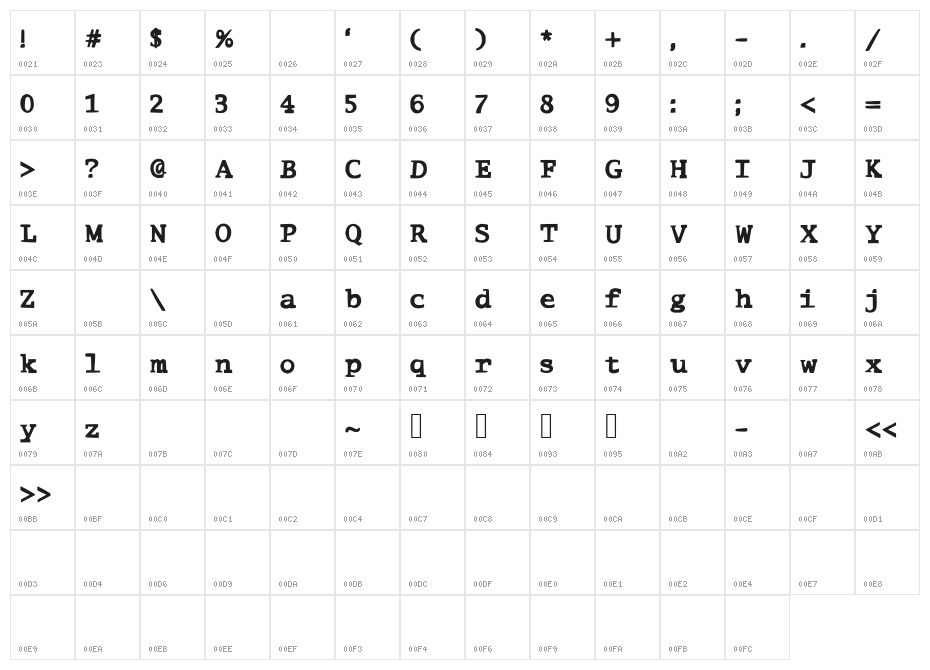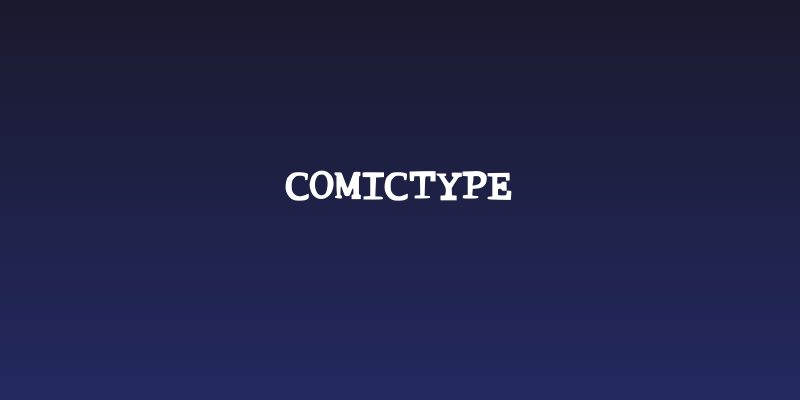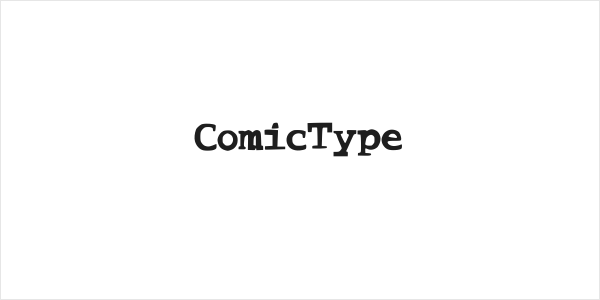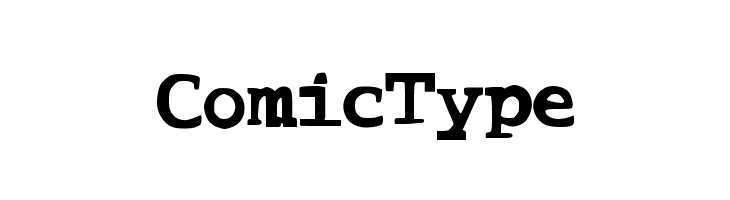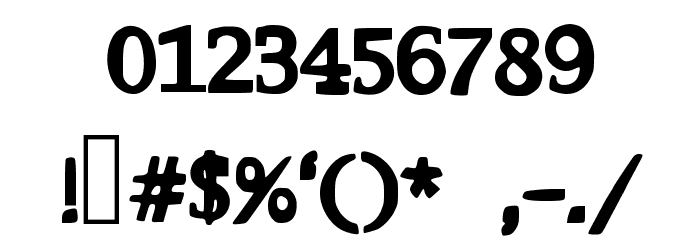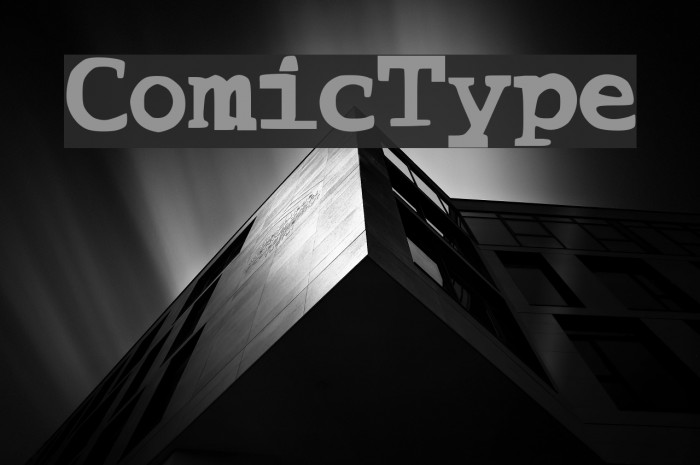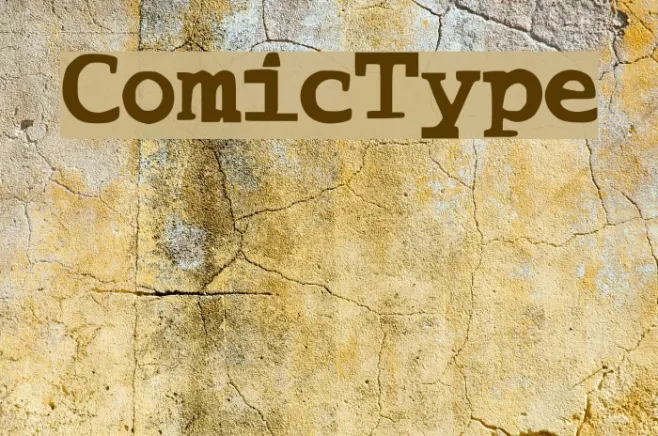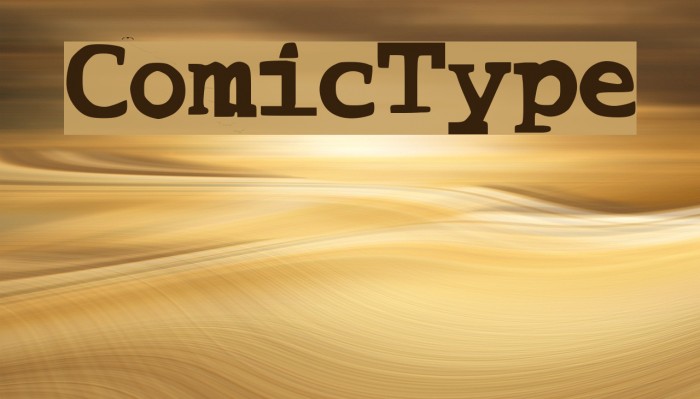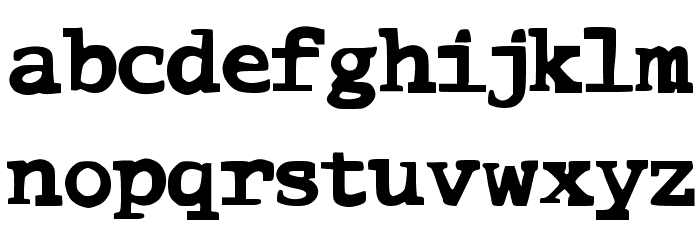
ComicType Font
ComicType Description
This font features a bold and playful style, characterized by its thick strokes and rounded edges. The letters have a slight slant, giving them a dynamic and lively appearance. The uppercase and lowercase characters maintain a consistent weight, providing a uniform look across the board. The numerals are equally bold, ensuring visibility and readability. Special characters are designed with the same playful aesthetic, making them suitable for a variety of creative applications. The overall design is reminiscent of comic book lettering, offering a fun and informal vibe.
| Overall Style | Playful, Comic |
| Proposed Projects | Perfect for comic books, children's books, playful branding, and informal posters. |